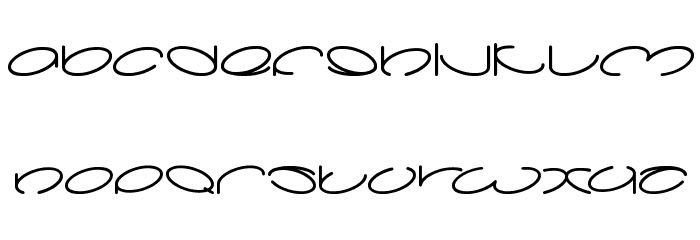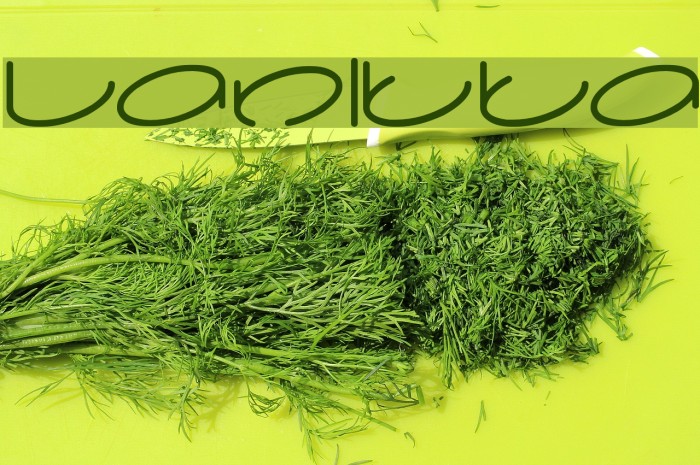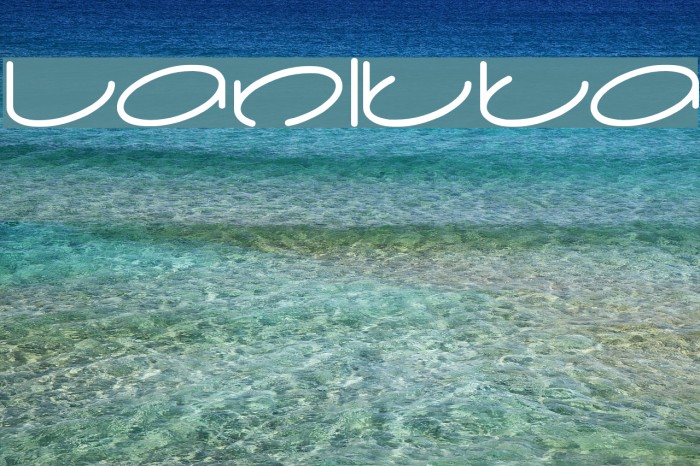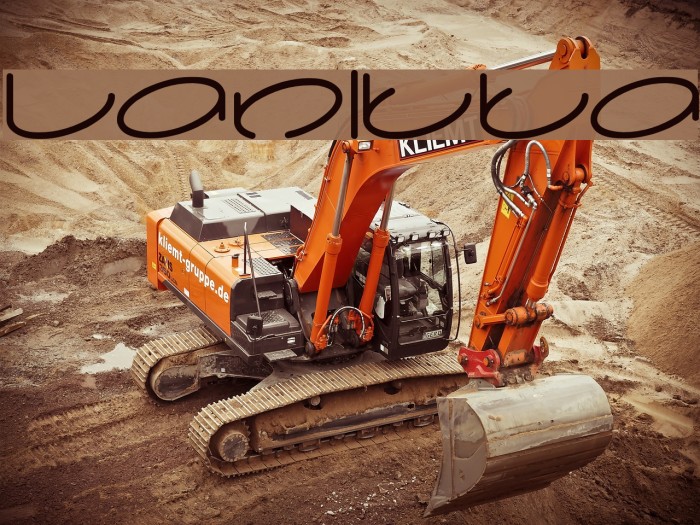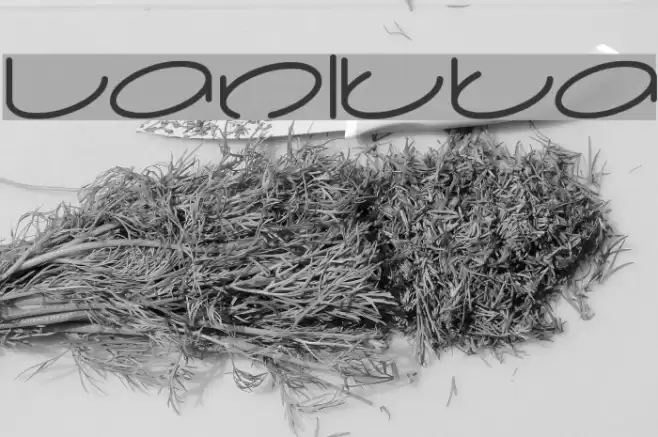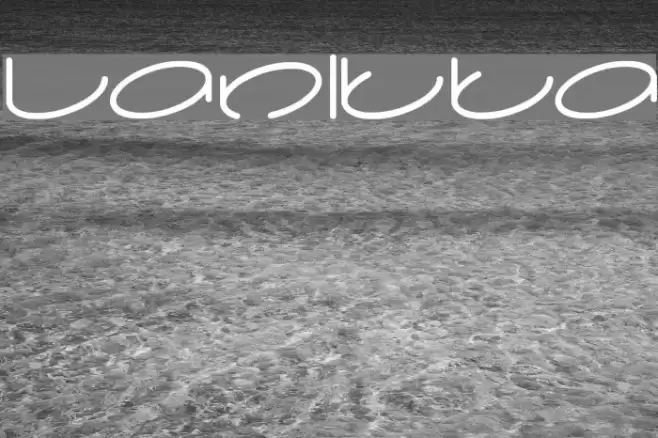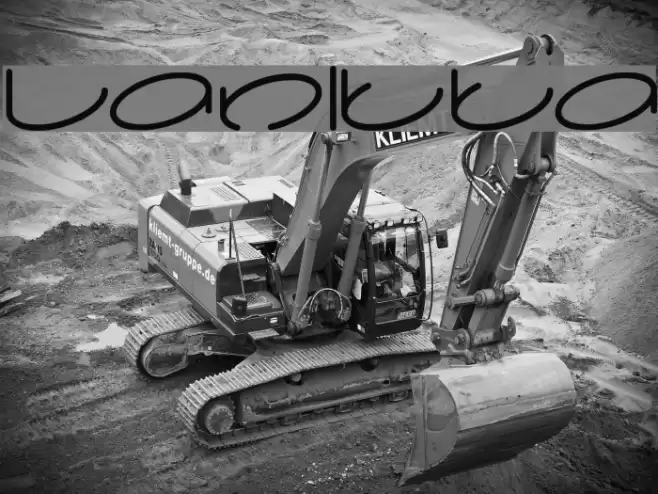
lanitta Font
This font features a unique and artistic design with a flowing, cursive style that incorporates both elegance and modernity. The characters are crafted with smooth, continuous lines that create a sense of movement and fluidity. Each letter has a distinctive flair, with elongated strokes and subtle curves that add to its decorative appeal. The font maintains a consistent thickness throughout, providing a balanced and harmonious appearance. Its creative design makes it suitable for projects that require a touch of sophistication and creativity.
An artistic and flowing cursive font with elegant, continuous lines.
- Proposed Projects: Ideal for wedding invitations, branding, artistic posters, and creative logos.
- Use Case: Logos, Headlines, Artistic projects